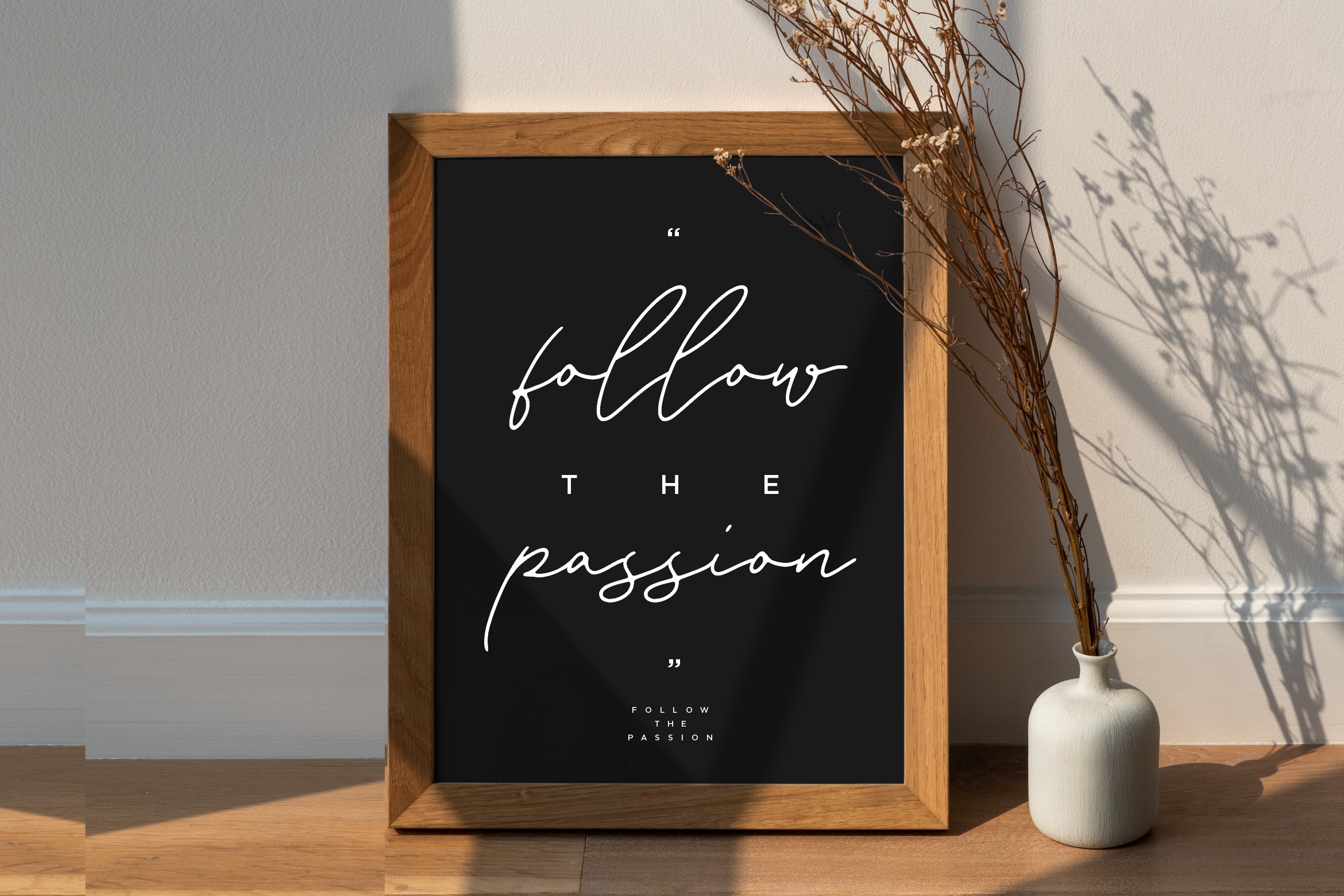
Milena Juliette Font
Milena Juliette Handwritten Font is a lovely and timeless handwritten font. It is the best choice for creating eye-catching logos, branding, and quotes. Every letter has a unique and beautiful touch, which will make your design come alive!